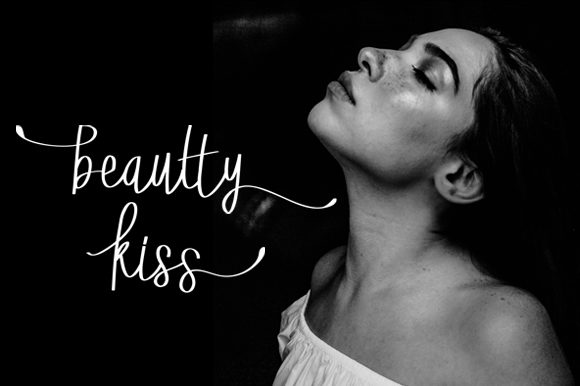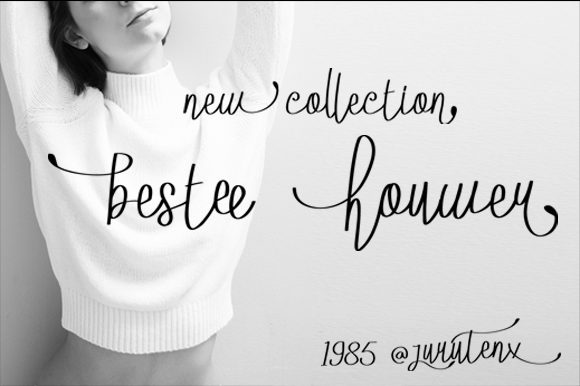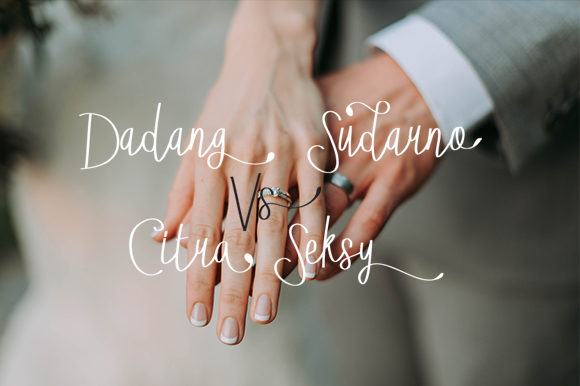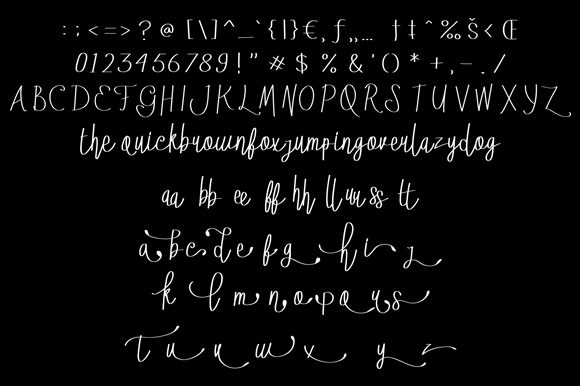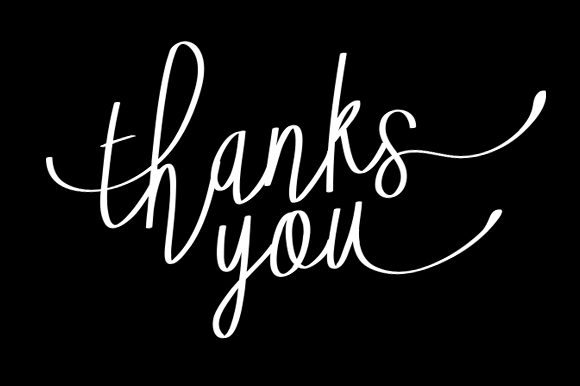
Introducing Greatful Sun Arnie Font: Elevate Your Designs with Elegance
In the world of typography, a font can make or break a design. It’s the perfect blend of style, elegance, and readability that can transform a simple project into a masterpiece. If you’re a designer, crafter, or DIY enthusiast looking for that special font to take your creations to the next level, look no further than Greatful Sun Arnie Font. This delicate, elegant, and flowing handwritten font is about to become your new best friend.
The Beauty of Greatful Sun Arnie Font
Greatful Sun Arnie Font boasts beautiful and well-balanced characters that exude a sense of sophistication and charm. Its flowing script is reminiscent of traditional calligraphy, yet it maintains a modern and fresh feel that’s perfect for a wide range of design projects. Whether you’re working on a logo, branding materials, invitations, or any other creative endeavor, this font is sure to add a touch of elegance and whimsy.
One of the standout features of Greatful Sun Arnie Font is its incredible versatility. Its classic yet contemporary style allows it to seamlessly integrate with a wide pool of designs, from vintage and rustic to modern and minimalist. This adaptability makes it an excellent choice for designers who like to experiment with different styles and themes. Whether you’re aiming for a soft, romantic look or a bold, statement-making appearance, Greatful Sun Arnie Font can help you achieve your vision.
Why Designers and Crafters Love Greatful Sun Arnie Font
Designers and crafters love Greatful Sun Arnie Font for several reasons:
- Elegance: The font’s delicate and flowing script adds a touch of sophistication to any design.
- Readability: Despite its elegant nature, Greatful Sun Arnie Font remains highly readable, even at smaller sizes.
- Uniqueness: Its unique style ensures that your designs stand out from the crowd.
How to Use Greatful Sun Arnie Font in Your Projects
Incorporating Greatful Sun Arnie Font into your designs is easy and fun. Here are a few ideas to get you started:
- Logos and Branding: Use Greatful Sun Arnie Font to create a memorable logo or to develop a cohesive brand identity.
- Stationery and Invitations: Add a touch of elegance to your stationery, invitations, and greeting cards.
- Web Design: Enhance your website’s typography with Greatful Sun Arnie Font, perfect for headings, titles, and quotes.
- Crafting and DIY Projects: From scrapbooking to crafting, this font can add a personal and creative touch to your projects.
- Delicate, elegant, and flowing handwritten script
- Well-balanced characters for optimal readability
- Suitable for a wide range of design projects
- Perfect for logos, branding, stationery, web design, and crafting